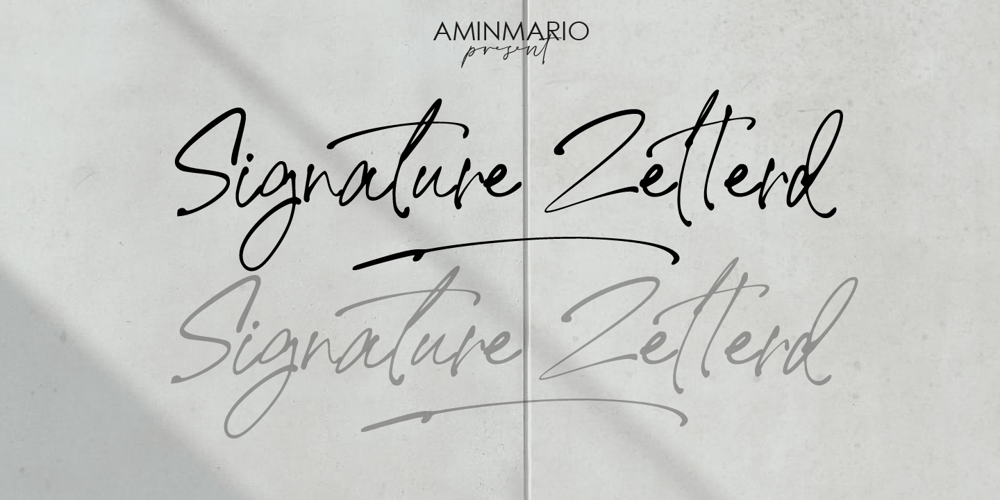
Signature Zetterd Font Family was designed by Amin Maryono and published by Aminmario Studio. Signature Zetterd contains 2 styles and family package options. This font was created to look as close to a natural handwritten script as possible by including lowercase swash, ligature and underlines. Perfect for any awesome projects that need hand writing taste.Comes with regular and italic. Built in Opentype features, this script comes to life as if you were writing it yourself. Also support multilingual.It’s highly recommended to use it in opentype capable software – there are plenty out there nowadays as technology catches up with design … Other than Photoshop, Illustrator and Indesign, many standard simple programs now come with Opentype capabilities – even the most basic ones such as Apple’s Text Edit, Pages, Keynote, iBooks Author, etc. Even Word has found ways to incorporate it.